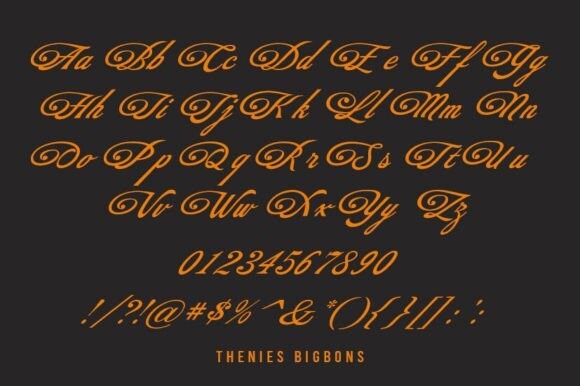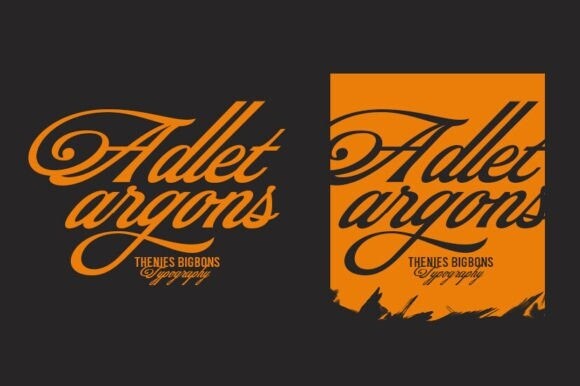
Thenies Bigbons Font
Thenies Bigbons Font – a captivating script font that exudes elegance and charm. With its flowing lines and stylish curves, this font is designed to add a touch of sophistication to your projects. Perfect for invitations, branding, and creative designs, TheNies BigBons brings a sense of handwritten grace to any text.